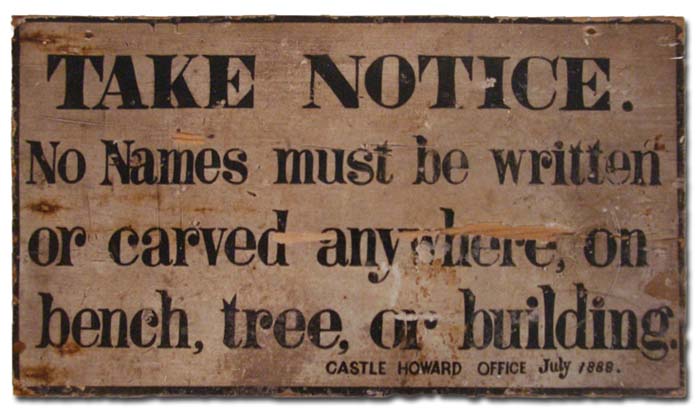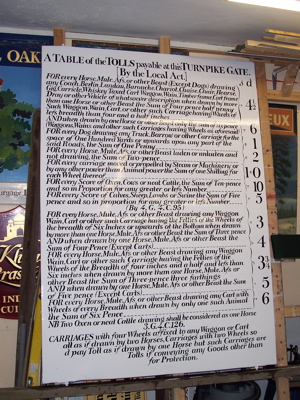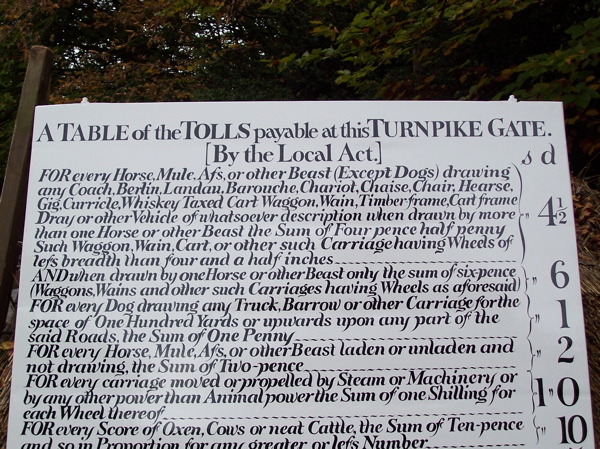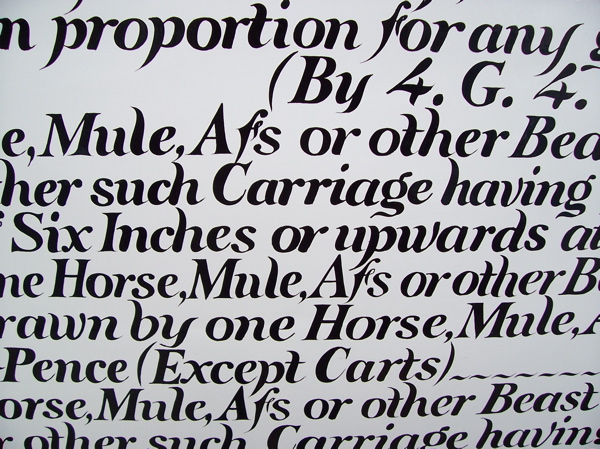
European Sign Photos
Now that I've discovered just how easy it is to post photos, here are a few from Europe.
is a bakery in Paris. Very old glass and the most remarkable of it's type I've seen.
A couple from the Lord Clyde pub in downtown London. It's remarkable because of the original antique glass and fittings. The reason is likely as it's owners have had it since the war.
The tile front complete with Truman logo and all.
and a detail
of course this wouldn't be complete without a picture of a travelling companion
Finaly!
Now we are talking :D
Who is that strange fella on the last photo?
Still in the learning phase ;-)
Nice photos Doug. I really like the reverse painted and leafed (French?) panel.
I want to learn how to upload photos here as well.
Hey, who is el loco hombre pouring salsa on the tortilla mas grande??
I will have you know that the pancake was very thin and no way big enough.
But still very nice especially with the syrup.
I cannot wait to return to England. Last time I was there, I took a ton of pics, sadly, not too many were of glass, mostly heraldry type bronze sculptures, reliefs and such. Just so overwhelming and basically the luck of the draw depending on what you happen to drive past.
Great picture of that bakery.
Here is a nice one I made about 15 years back, on the estate of Castle Howard in England.
Graffity was already a problem in 1888!
Heres a replica of an 1890's Toll road ,price board I painted a couple of years ago- Similar style lettering to yours Erik.